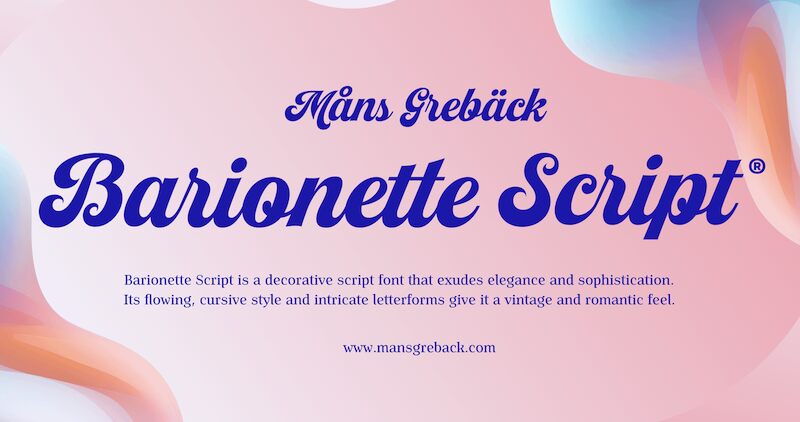
Barionette Script font by Mans Greback combines bold brush strokes with generous swirls for an elegant, vintage-inspired design. Romantic and flowing with a strong presence, this expressive font commands attention with confident curves ideal for projects that demand sophistication.
Use Barionette Script in wedding invitations, branding, menus, logos, posters, packaging design, book covers, greeting cards, social media graphics. Enjoy its classic look in business cards and stationery or as a motivational quote typeface.